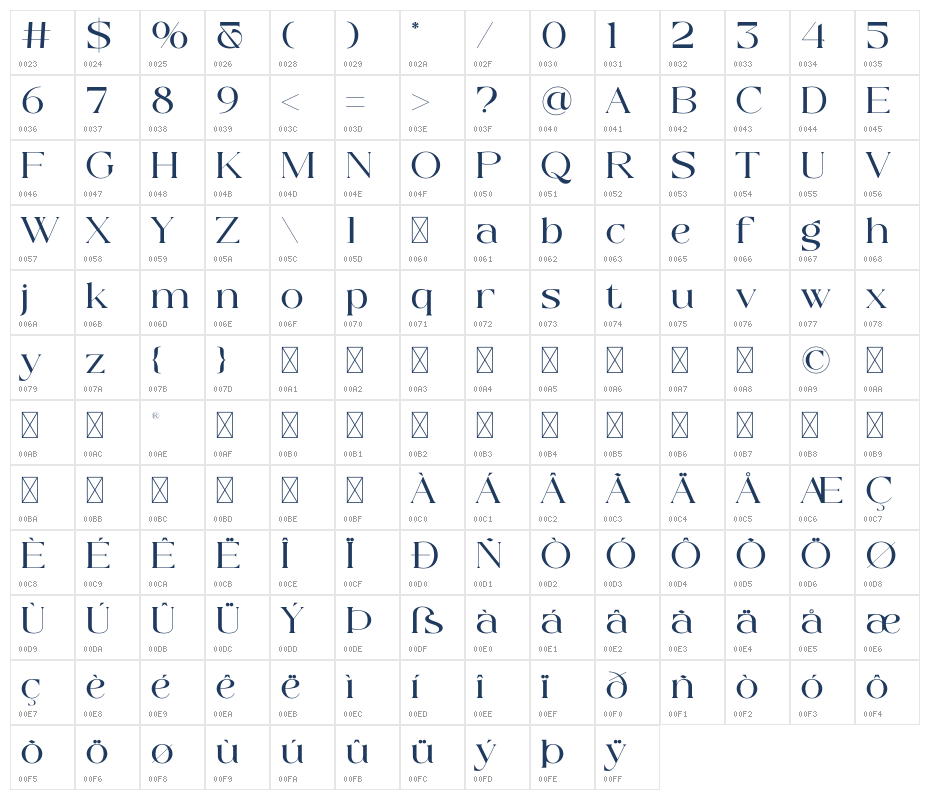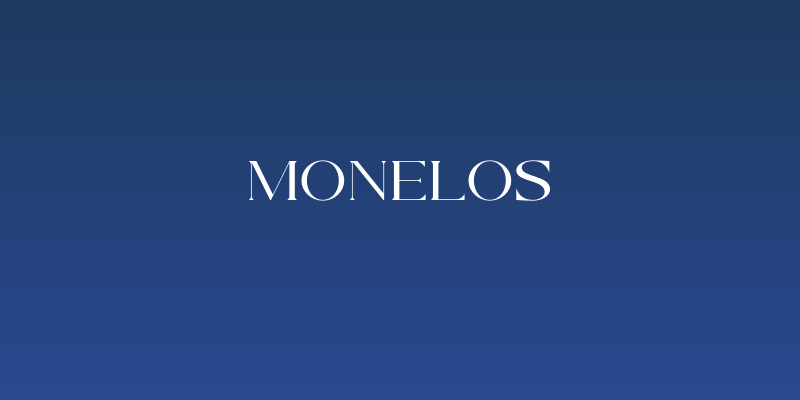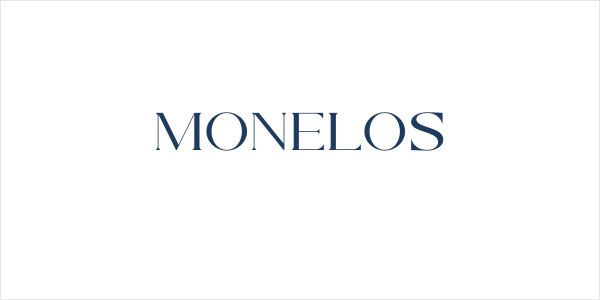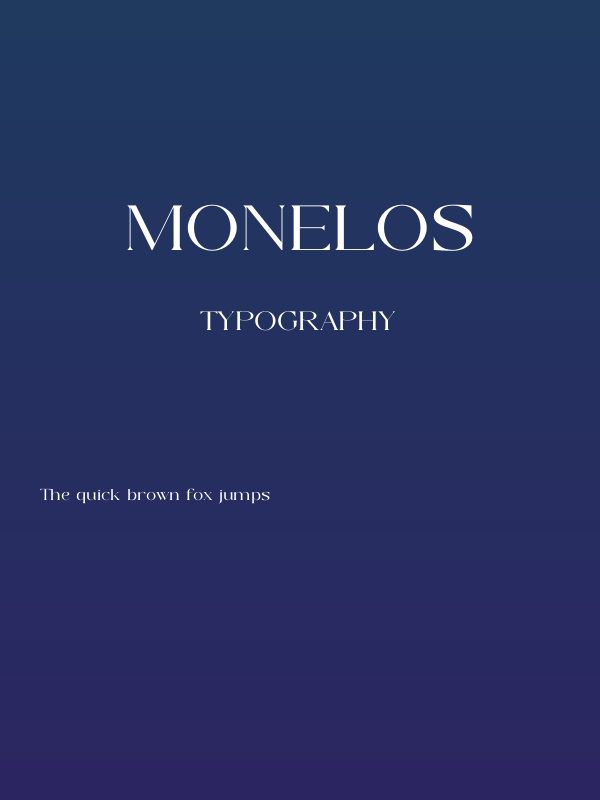
MONELOS Font
MONELOS Description
Elegant, serif font with high contrast and refined strokes, featuring both uppercase and lowercase letters, numerals, and special characters.
| Overall Style | Modern, Elegant, Classic |